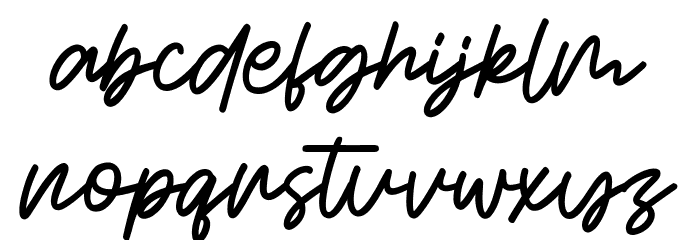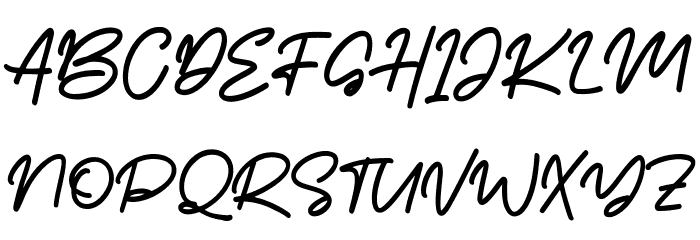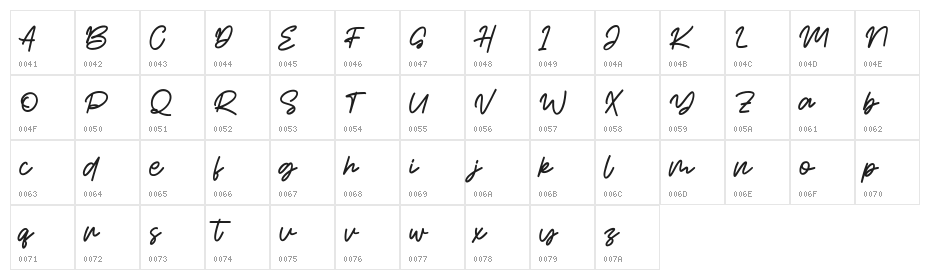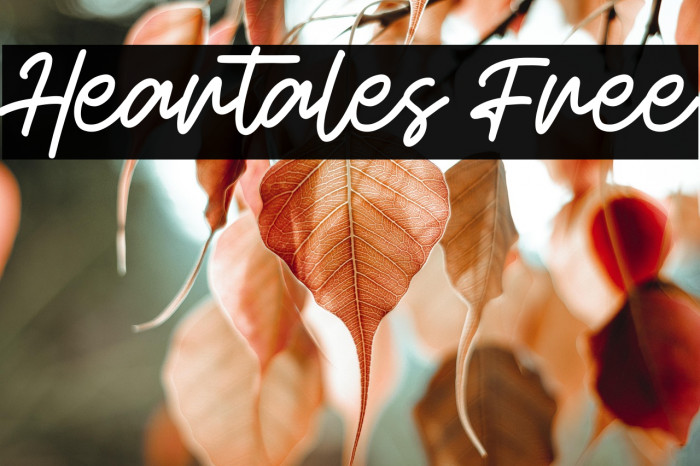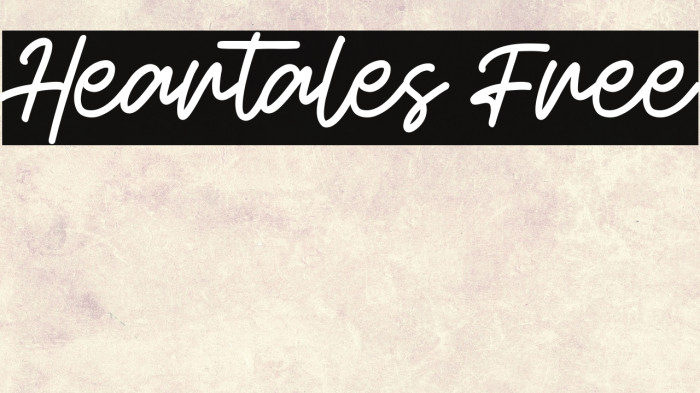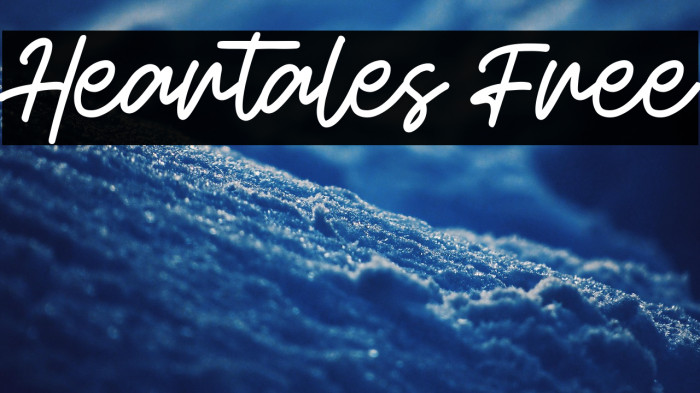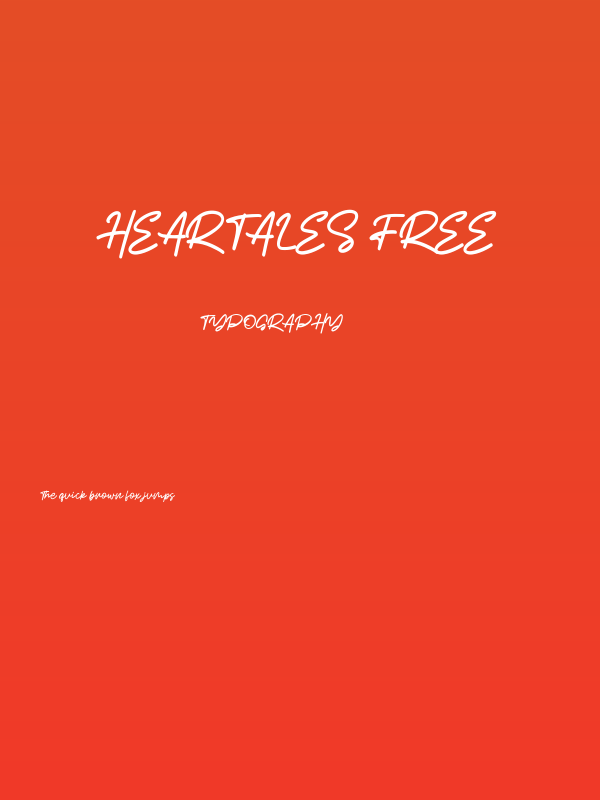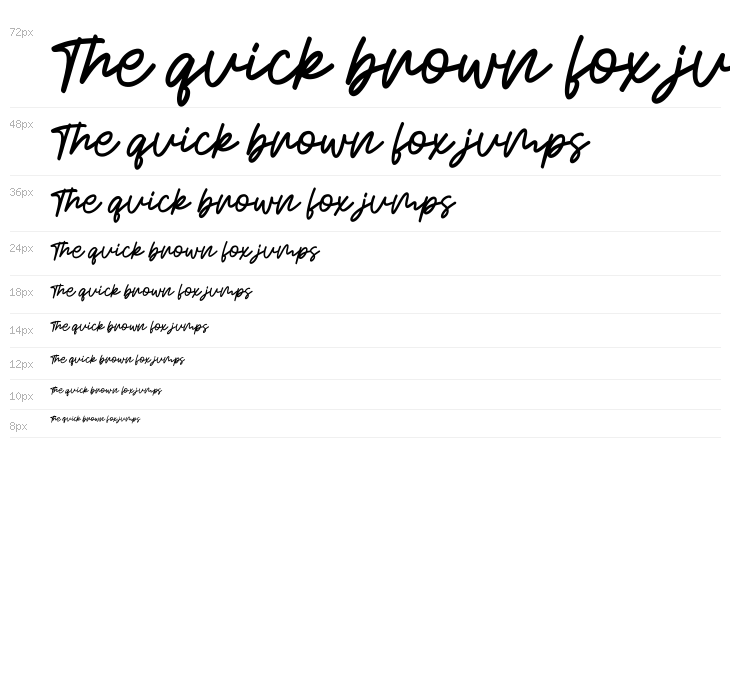
Heartales Free Font
This font features a flowing, cursive style that exudes elegance and a personal touch. The letters are interconnected, creating a seamless and fluid appearance. The strokes are moderately thick, providing a bold presence while maintaining a graceful aesthetic. The uppercase letters are slightly larger and more pronounced, while the lowercase letters maintain a consistent flow. This script style is reminiscent of handwritten notes, offering a warm and inviting feel. The overall design is balanced, with each character maintaining a harmonious relationship with the others, making it suitable for projects that require a touch of sophistication and charm.
A flowing, cursive script font with elegant, interconnected letters.
- Proposed Projects: Ideal for wedding invitations, greeting cards, branding, and personal notes.
- Category: Script
- Character Spacing: Tight
- Overall Style: Elegant
- Use Case: Logos, Invitations, Personal notes